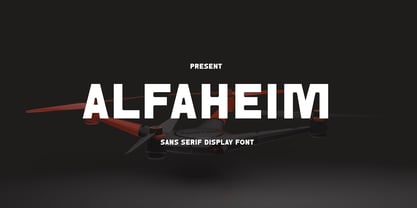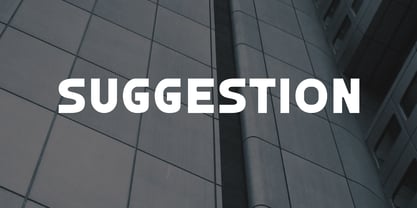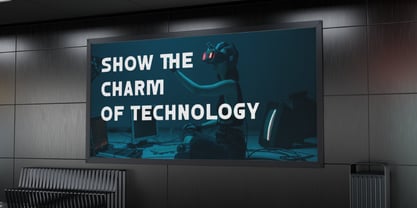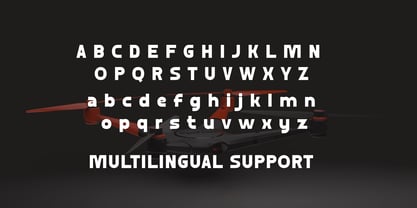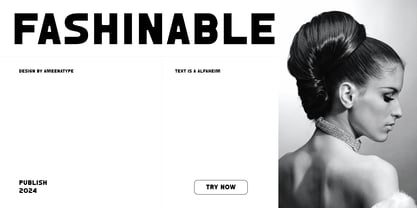
Alfaheim
by Ameenatype
The Alfaheim Font Family was designed by Syaiful Rizal Muhaimin and published by Ameenatype. Alfaheim contains 1 styles. More about this family
Alfaheim is a bold geometric display typeface designed to command attention and create a strong visual presence. Built around heavy, structured forms and distinctive geometric proportions, it combines a contemporary aesthetic with a futuristic edge. Its solid construction makes it highly effective for impactful headlines, posters, branding, packaging, editorial layouts, technology-driven identities, and digital experiences. With a confident personality and uncompromising weight, Alfaheim transforms ordinary words into powerful graphic statements.
Designers: Syaiful Rizal Muhaimin
Foundry: Ameenatype